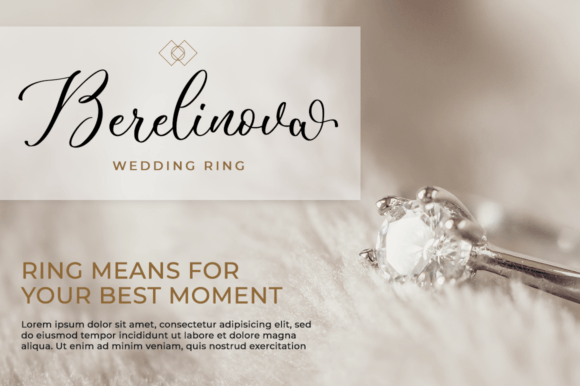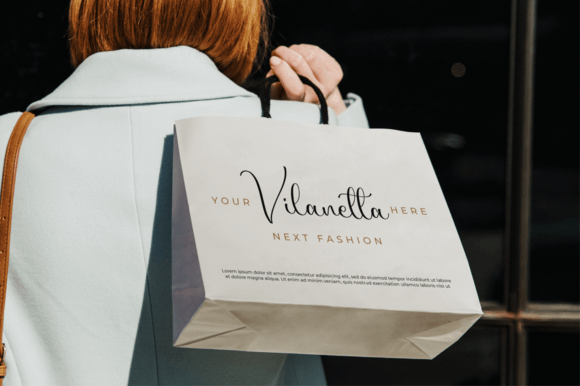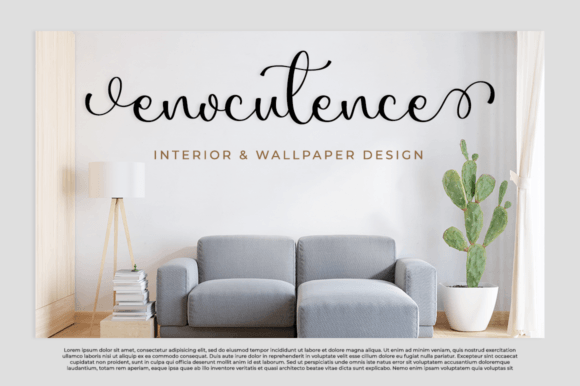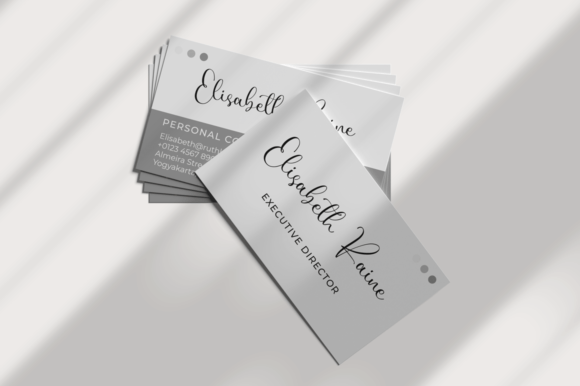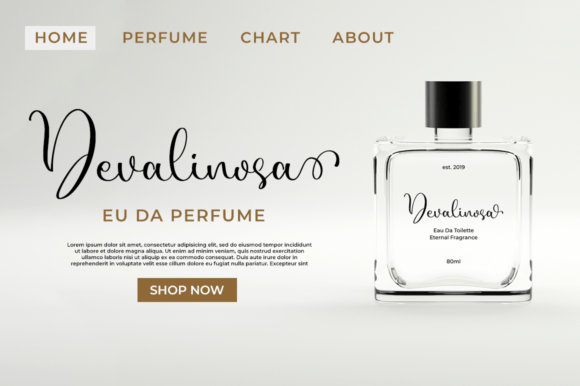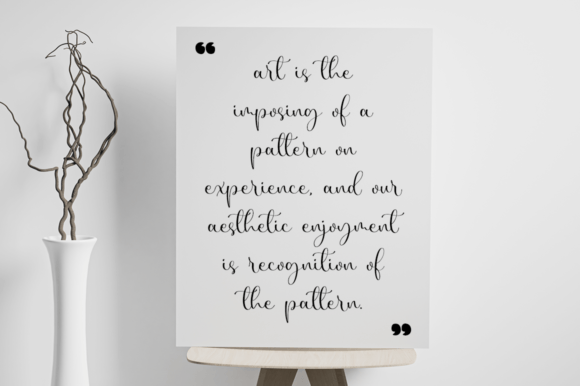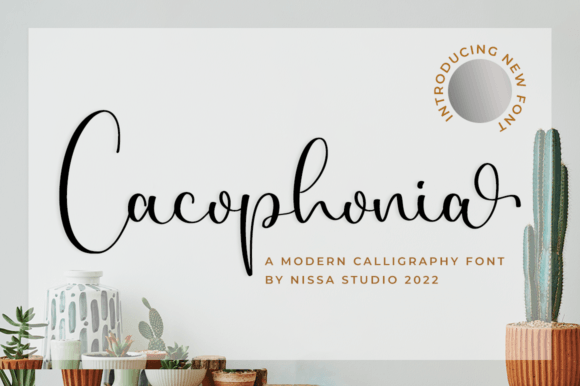
Cacophonia Font: Elevate Your Designs with Elegance and Sophistication
In the world of typography, a font can make or break a design. For designers and crafters seeking to add a touch of elegance and sophistication to their work, the Cacophonia Font is an excellent choice. This beautiful, handwritten font is perfect for a variety of projects, from wedding invitations and greeting cards to logos and business cards.
The Beauty of Cacophonia Font
Cacophonia is an elegant handwritten font that feels both gorgeous and distinct. Its unique charm makes it stand out from other fonts, allowing designers to create stunning visual content that captures the attention of their audience. The font’s elegant strokes and beautiful swashes make it perfect for designs that require a customized touch.
Cacophonia Font looks beautiful on a wide range of design projects, including:
- Wedding invitations: Add a touch of romance and elegance to your wedding invitations with Cacophonia Font.
- Thank you cards: Express your gratitude in style with this beautiful font.
- Quotes: Make your quotes stand out with the elegant and sophisticated look of Cacophonia Font.
- Greeting cards: Create stunning greeting cards for any occasion with this versatile font.
- Logos: Use Cacophonia Font to create a unique and memorable logo for your brand.
- Business cards: Elevate your business cards with the sophisticated look of Cacophonia Font.
Why Choose Cacophonia Font?
With so many fonts available, why choose Cacophonia Font? Here are just a few reasons:
- Elegant and sophisticated design: Cacophonia Font is perfect for designers and crafters seeking to add a touch of elegance and sophistication to their work.
- Versatile: This font is suitable for a wide range of design projects, from wedding invitations to logos and business cards.
- Unique: Cacophonia Font has a unique charm that sets it apart from other fonts, making it perfect for designers seeking to create stunning visual content.
Tips for Using Cacophonia Font
To get the most out of Cacophonia Font, here are a few tips:
- Experiment with different sizes and colors to find the perfect look for your design.
- Use the glyphs and swashes to add a touch of elegance and sophistication to your text.
- Pair Cacophonia Font with other fonts to create a unique and visually appealing design.
- Don’t be afraid to get creative and try new things – Cacophonia Font is a versatile font that can be used in a variety of innovative ways.
Cacophonia Font is a beautiful, elegant handwritten font that is perfect for designers and crafters seeking to add a touch of sophistication and elegance to their work. With its PUA encoding and wide range of glyphs and swashes, this font is easy to use and versatile. Whether you’re creating wedding invitations, logos, or business cards, Cacophonia Font is an excellent choice. So why not give it a try and see the difference it can make in your designs?